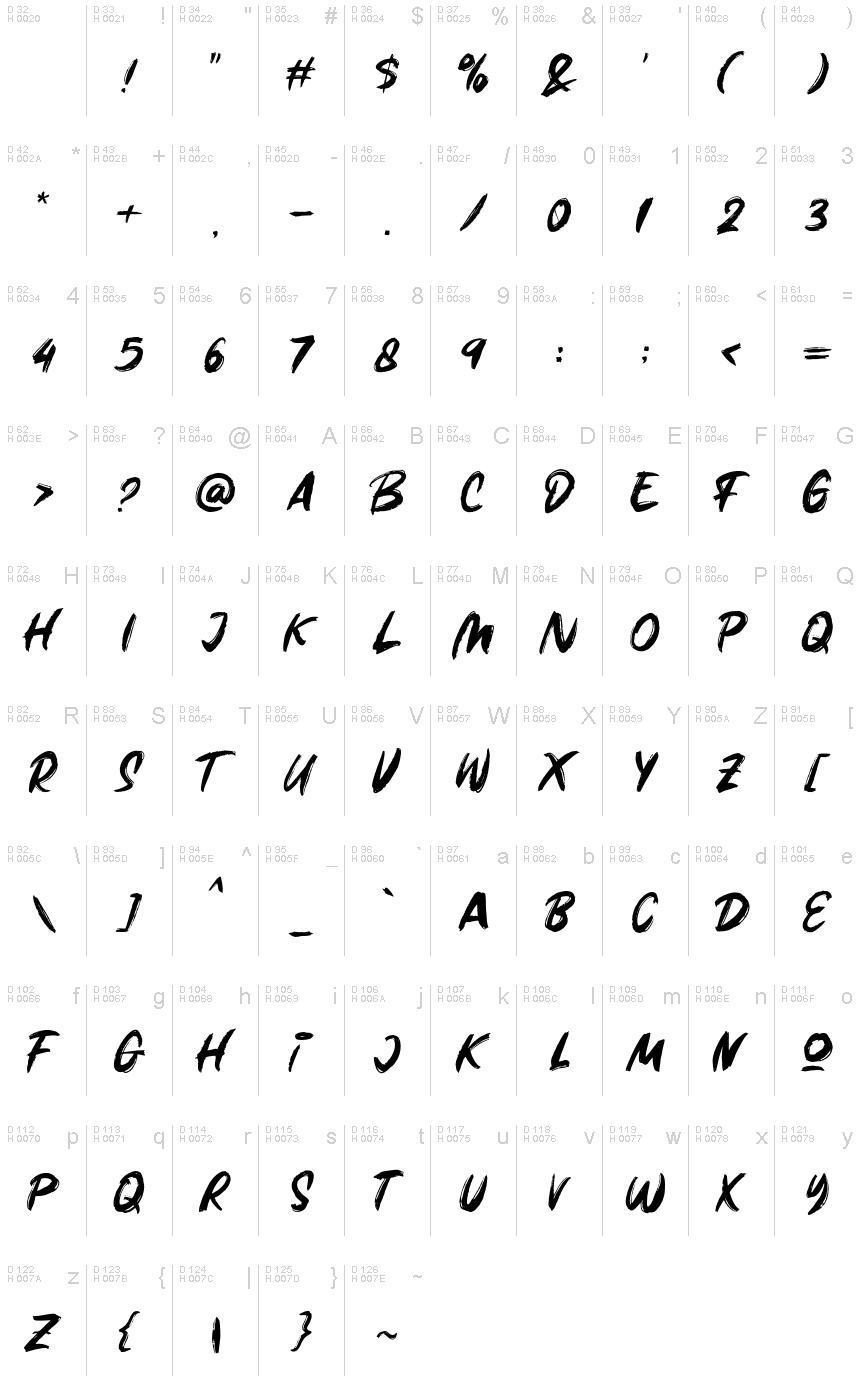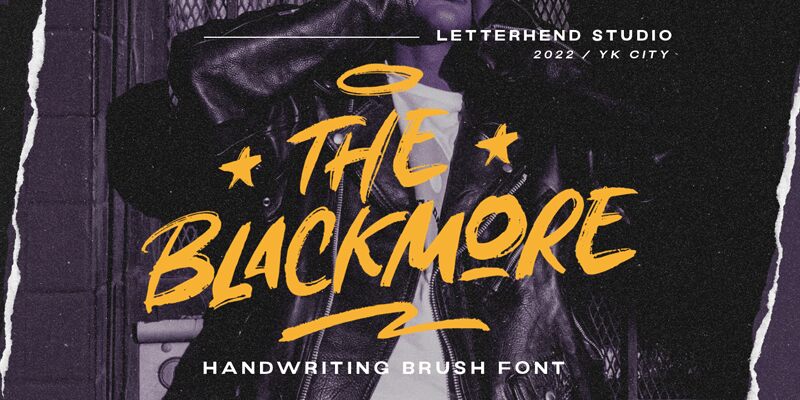
The Blackmore is a captivating brush-style font that commands attention with its bold, dynamic strokes. Crafted by Letterhend Studio, this font exudes a sense of energy and confidence, making it an exceptional choice for impactful headlines, eye-catching logos, and expressive branding.
The Blackmore's striking appearance, with its thick, expressive brushwork, lends an artistic flair to any design, effortlessly conveying a sense of artistry and passion. This font's versatility shines through, seamlessly transitioning from bold display use to more subtle applications in editorial layouts, packaging, and even digital interfaces.
The Blackmore's distinctive character and undeniable visual impact make it a valuable asset for designers seeking to create memorable, visually striking designs that leave a lasting impression.